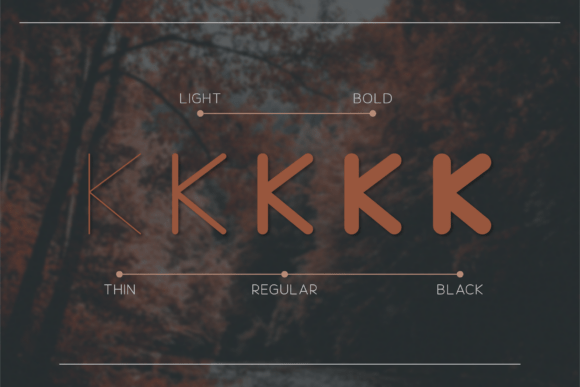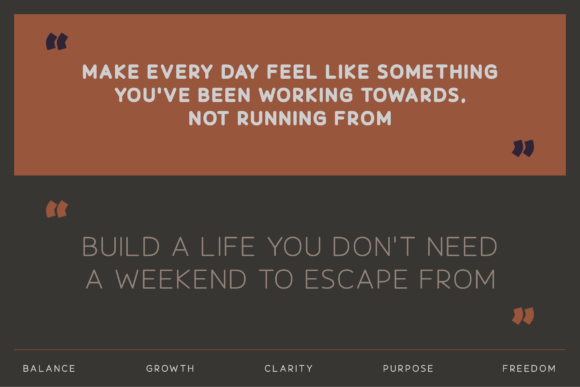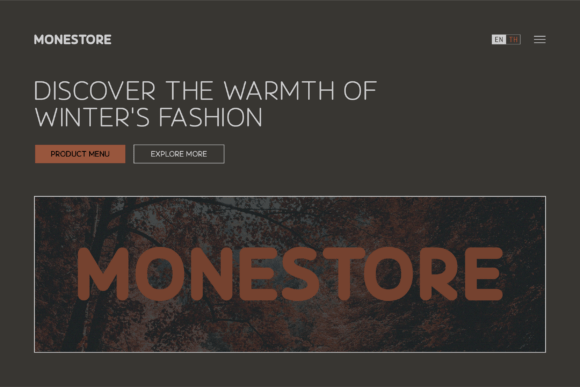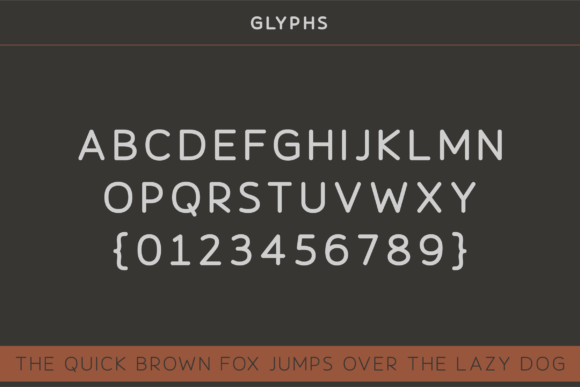
Introduction to Novluxe Rounded Font
Have you ever stared at a blank design canvas, struggling to find the perfect font to bring your creative project to life? The right font can make all the difference, elevating your design from bland to grand. That’s exactly what the Novluxe Rounded Font does – it adds a touch of sophistication and personality to your work, making it stand out in a crowded digital landscape.
As a designer, you understand the importance of having a versatile and high-quality design resource like the Novluxe Rounded Font in your toolkit. With its five weights and sleek, geometric construction, this font family is perfect for creating clean and friendly visual identities. Whether you’re building a logo, packaging design, or social media visuals, the Novluxe Rounded Font adapts beautifully, adding a polished and confident touch to your work.
Key Features of Novluxe Rounded Font
- Unique rounded design style for a creative and modern look, perfect for creative projects and designs.
- Designed to be highly legible and versatile, making it suitable for a wide range of creative projects, from digital art to print materials.
- Includes a comprehensive character set, including uppercase and lowercase letters, numbers, and special characters, for a complete design solution.
Honest Review: Novluxe Rounded Font
I recently had the chance to work with the Novluxe Rounded Font, and I’m excited to share my thoughts on this design resource. Overall, I’m quite impressed with its quality and versatility.
- ✨ High-quality design: The Novluxe Rounded Font features a clean and elegant design that’s perfect for creative projects.
- ⚠️ Limited font styles: The Novluxe Rounded Font only comes in a few different weights, which may not be enough for designers who need a wider range of options.
- ⚠️ Not suitable for all designs: While the font is great for creative projects, it may not be the best choice for more formal or professional designs.
Overall, I think the Novluxe Rounded Font is a solid addition to any designer’s toolkit. It’s free, high-quality, and versatile, making it a great option for creative projects. However, designers who need a wider range of font styles may want to look elsewhere.
To get the most out of the Novluxe Rounded Font, experiment with different font sizes and styles. Combine it with other design elements to create unique and eye-catching visuals. Don’t be afraid to push the boundaries of this font’s capabilities to suit your creative vision.
The Novluxe Rounded Font is suitable for a wide range of design projects, including branding, advertising, and editorial content. Its high-quality design and transparent background feature make it an ideal choice for creative professionals and hobbyists alike.